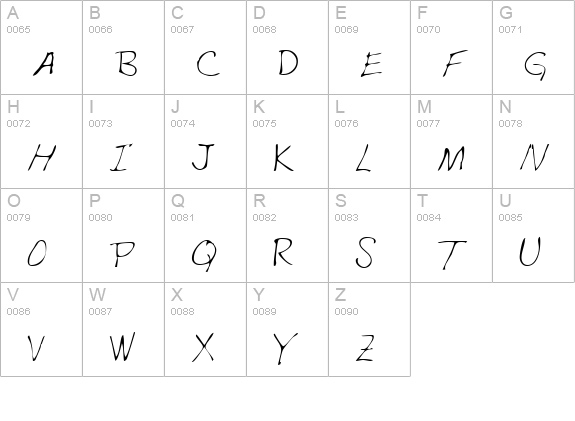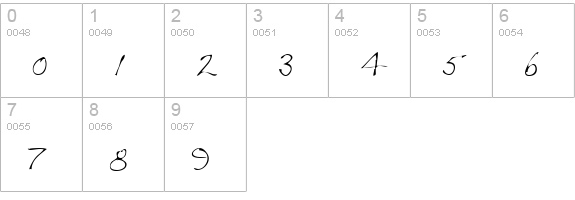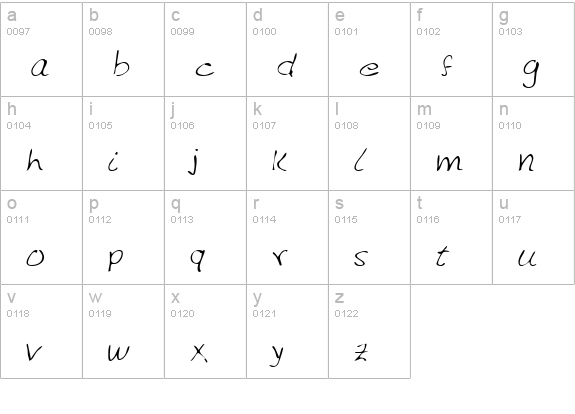
JulianasHand Regular is the standard, neutral variant in the JulianasHand typeface family \xE2\x80\x94 well suited to general body text, paragraphs, and standard typographic work.
JulianasHand Regular font is a charming and versatile typeface that exudes a sense of warmth and friendliness. With its hand-drawn style and elegant curves, this font is perfect for adding a personal touch to any project. Whether you're creating invitations, greeting cards, or branding materials, JulianasHand Regular will bring a unique and artistic flair to your design. What's even better is that JulianasHand Regular is available for free download at FontsMarket.com, making it accessible to everyone looking to enhance their creative projects with a touch of handmade beauty. So go ahead and download JulianasHand Regular today to add a touch of whimsy and personality to your designs!